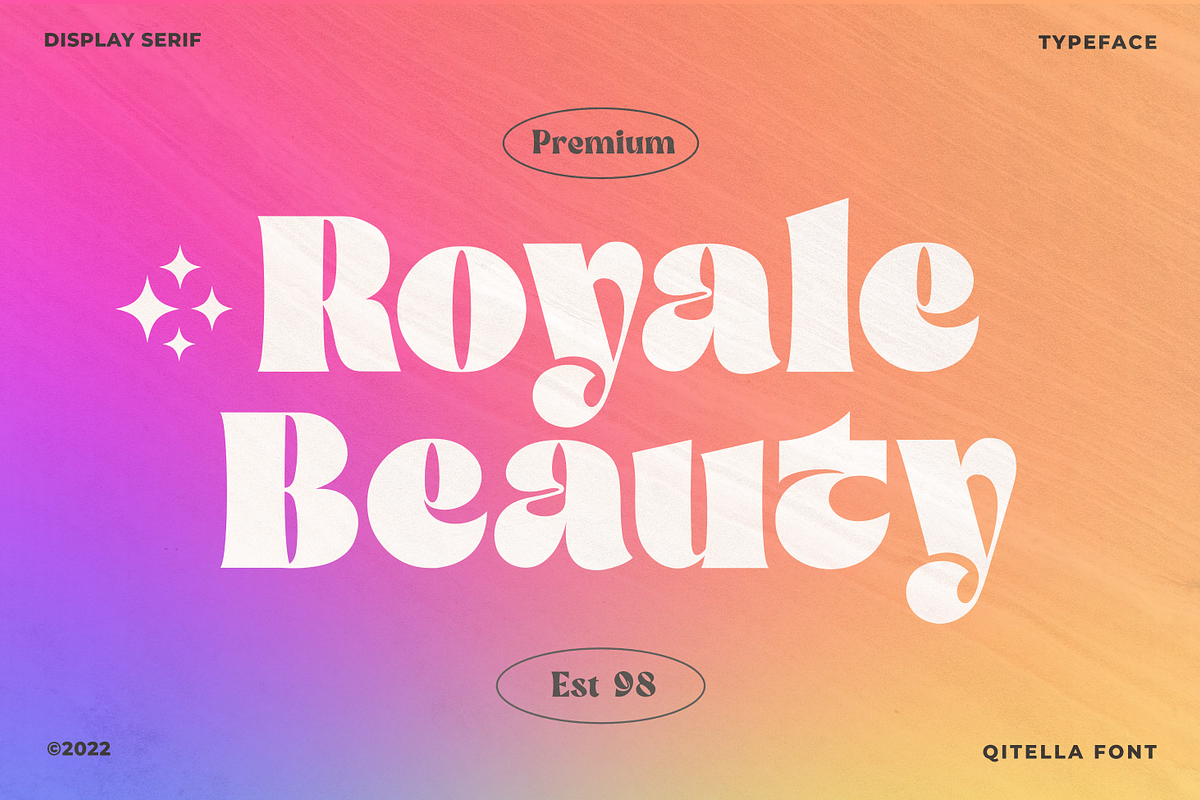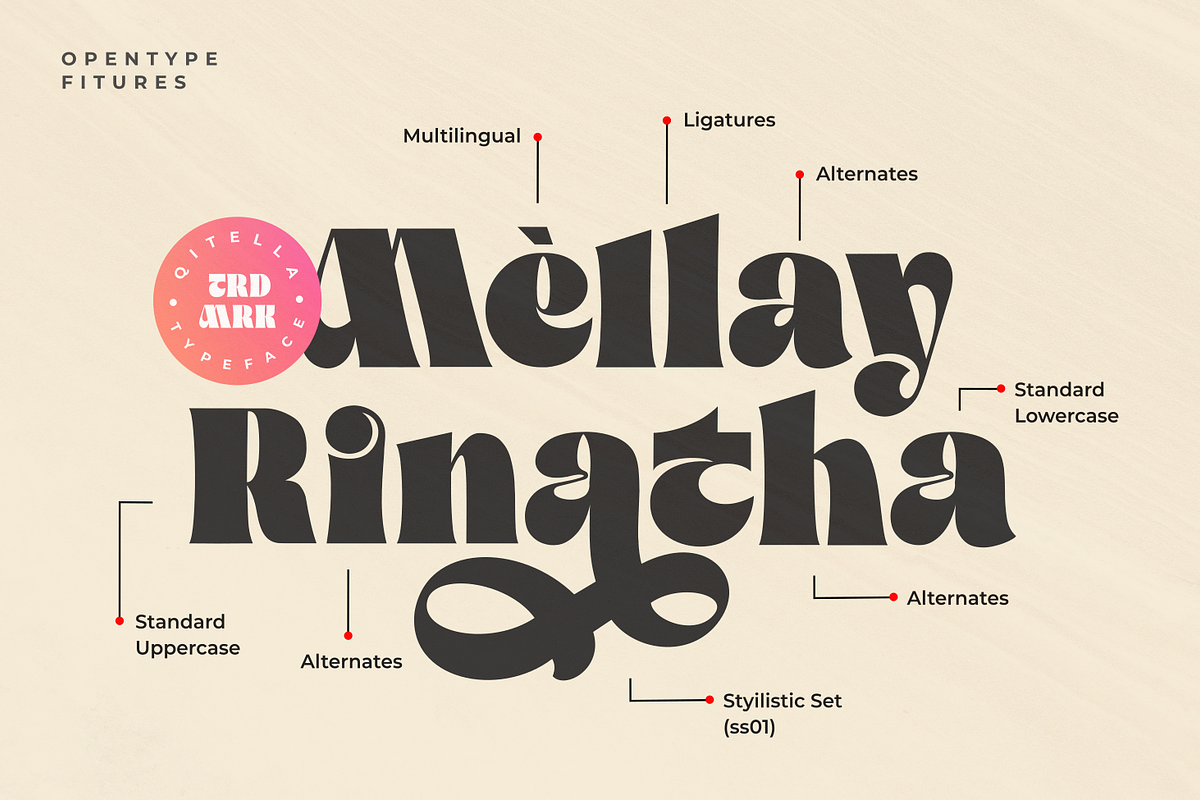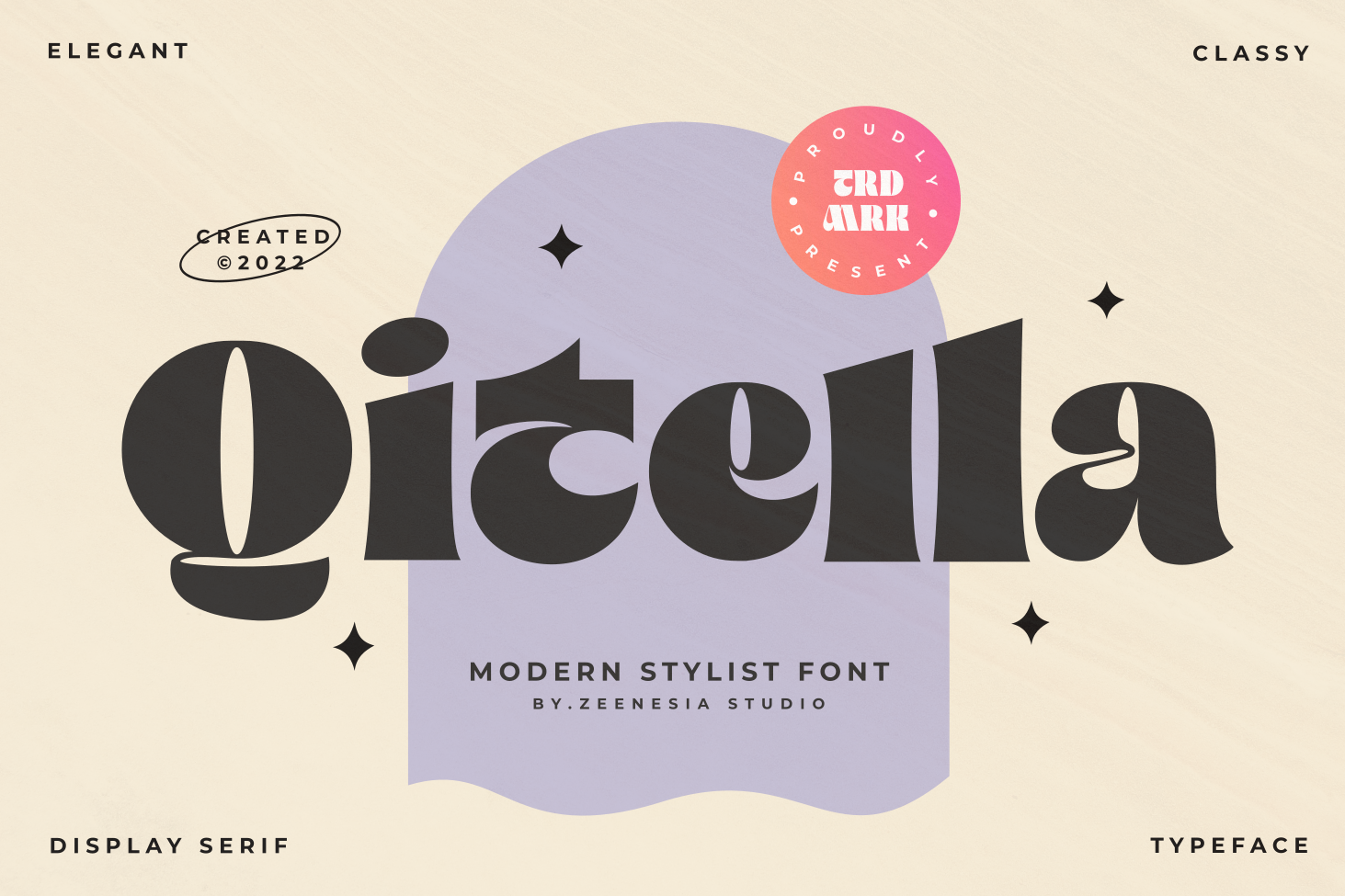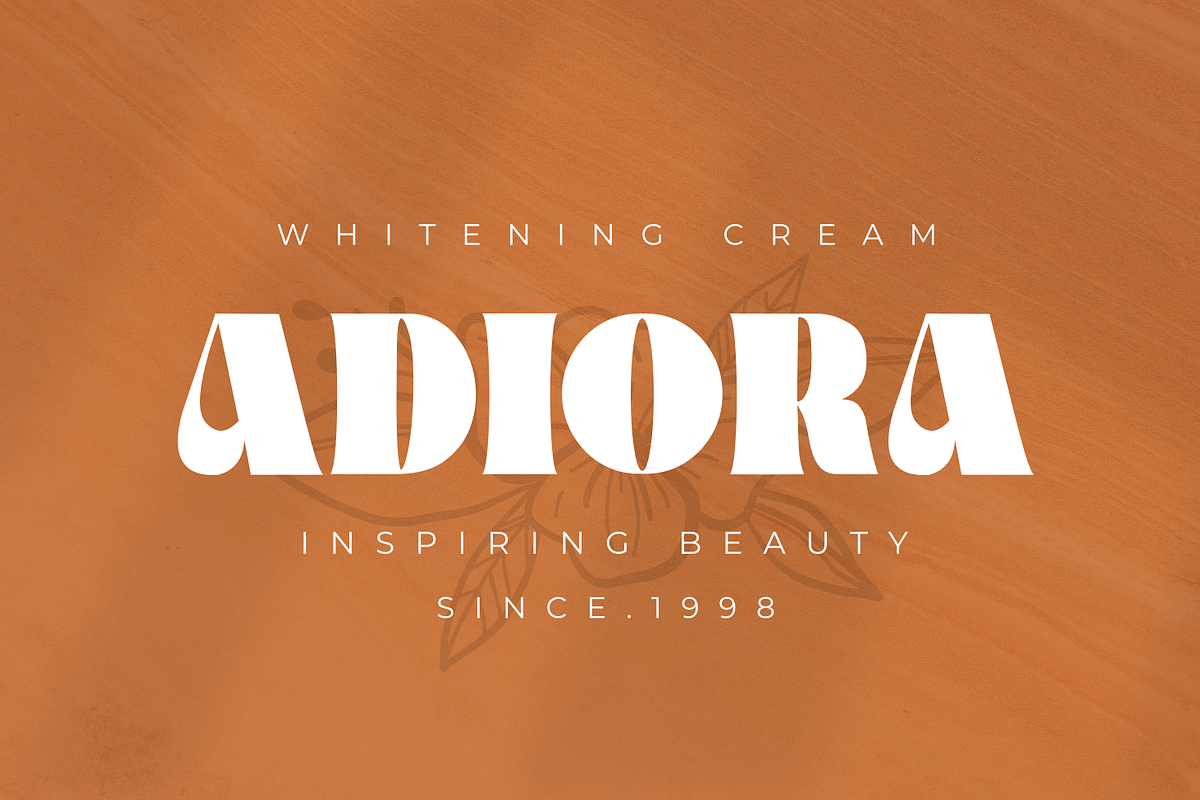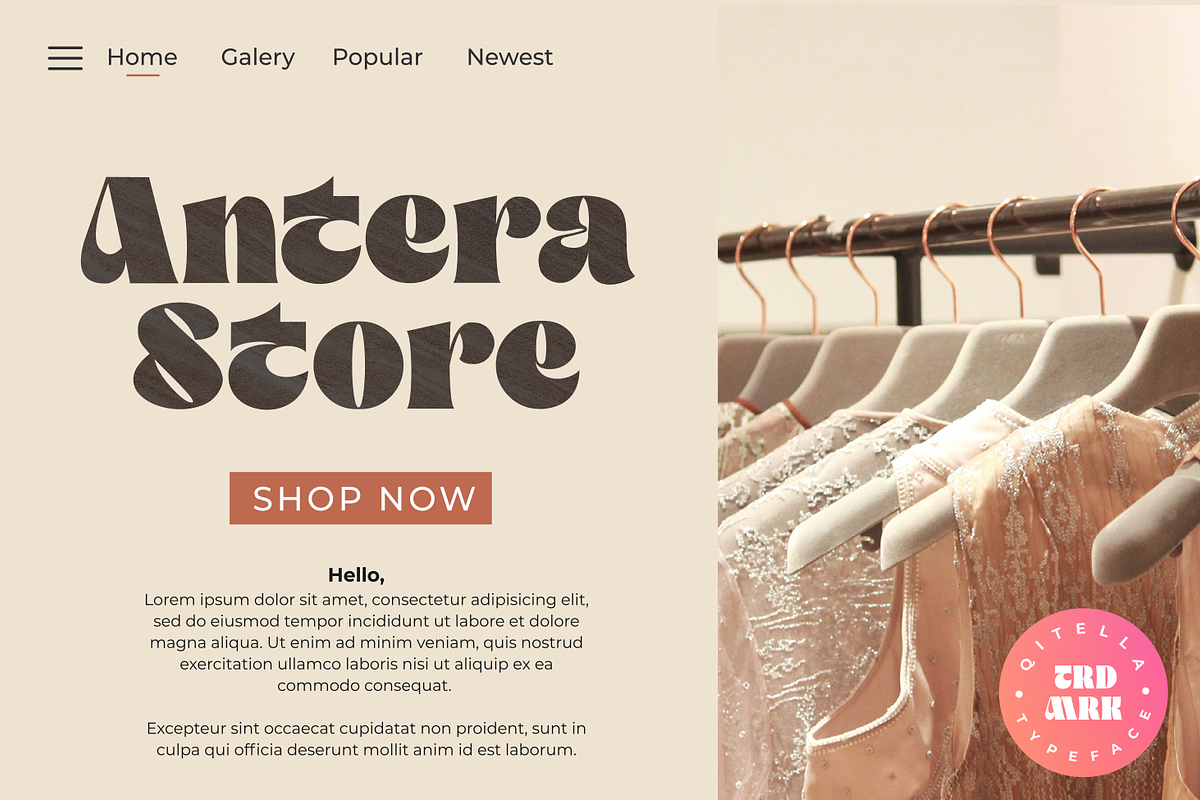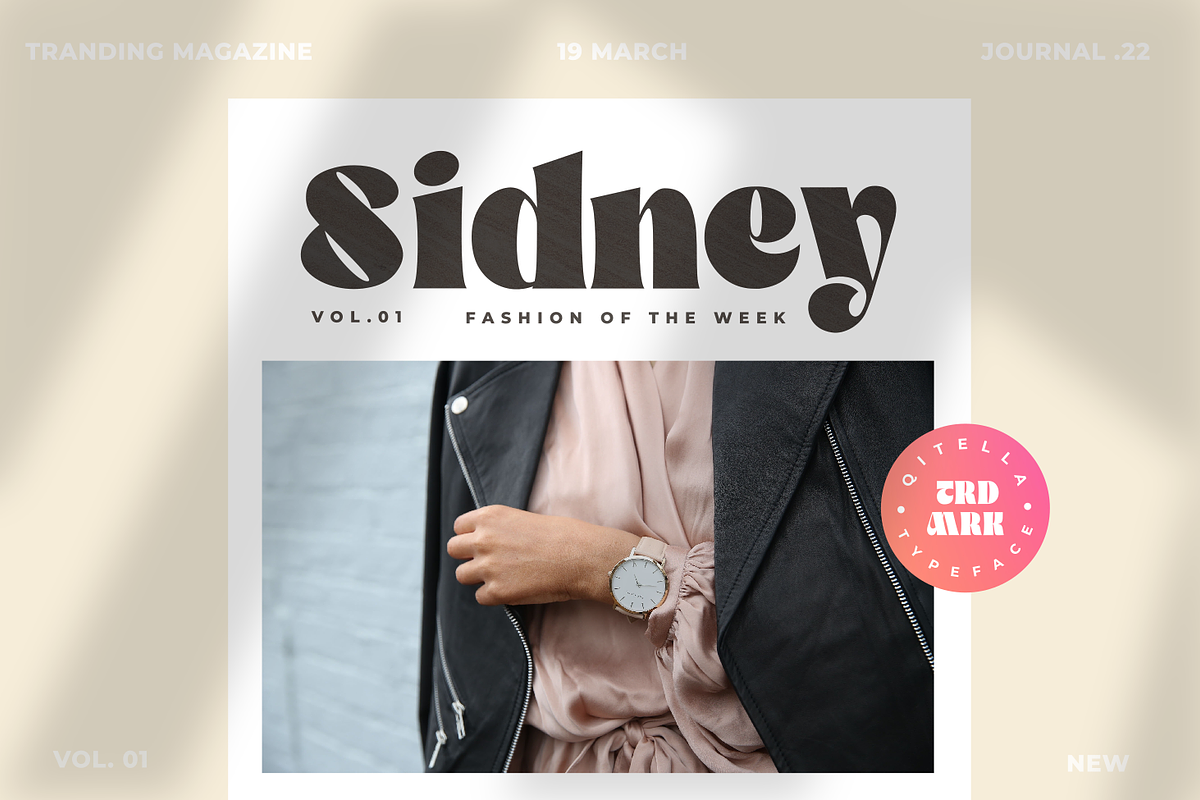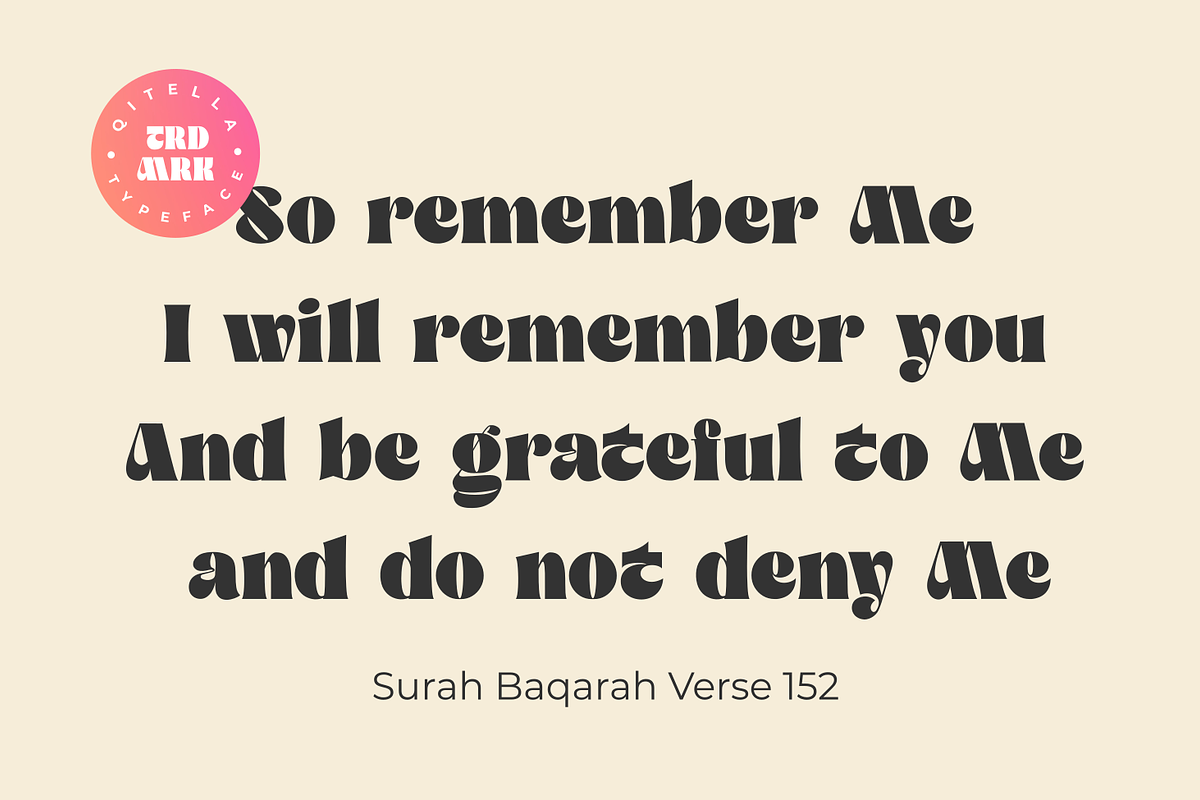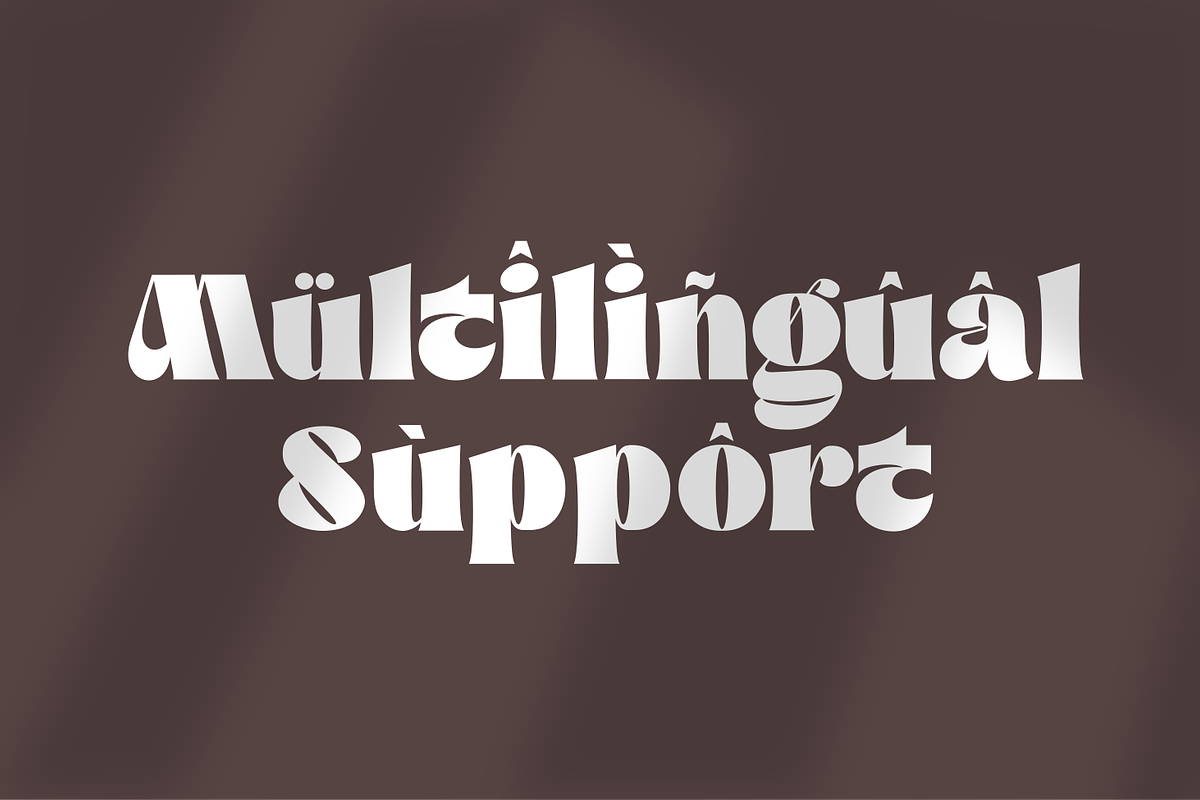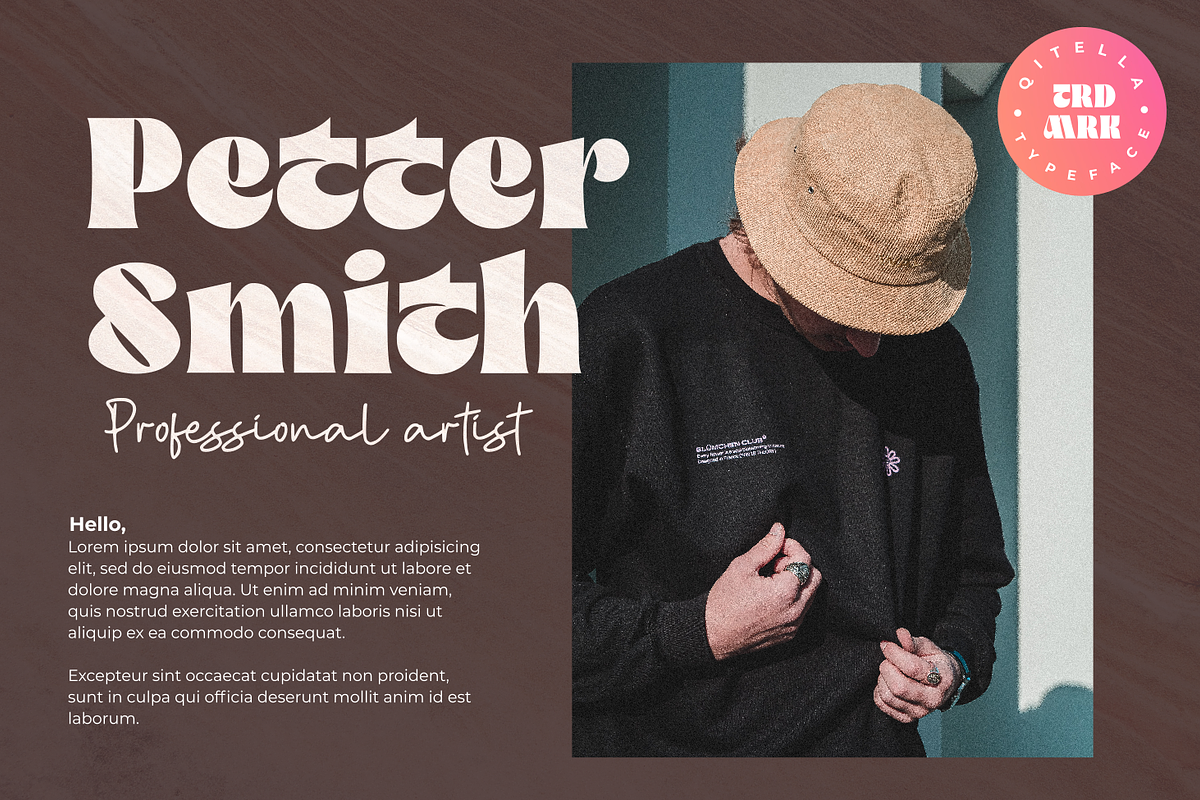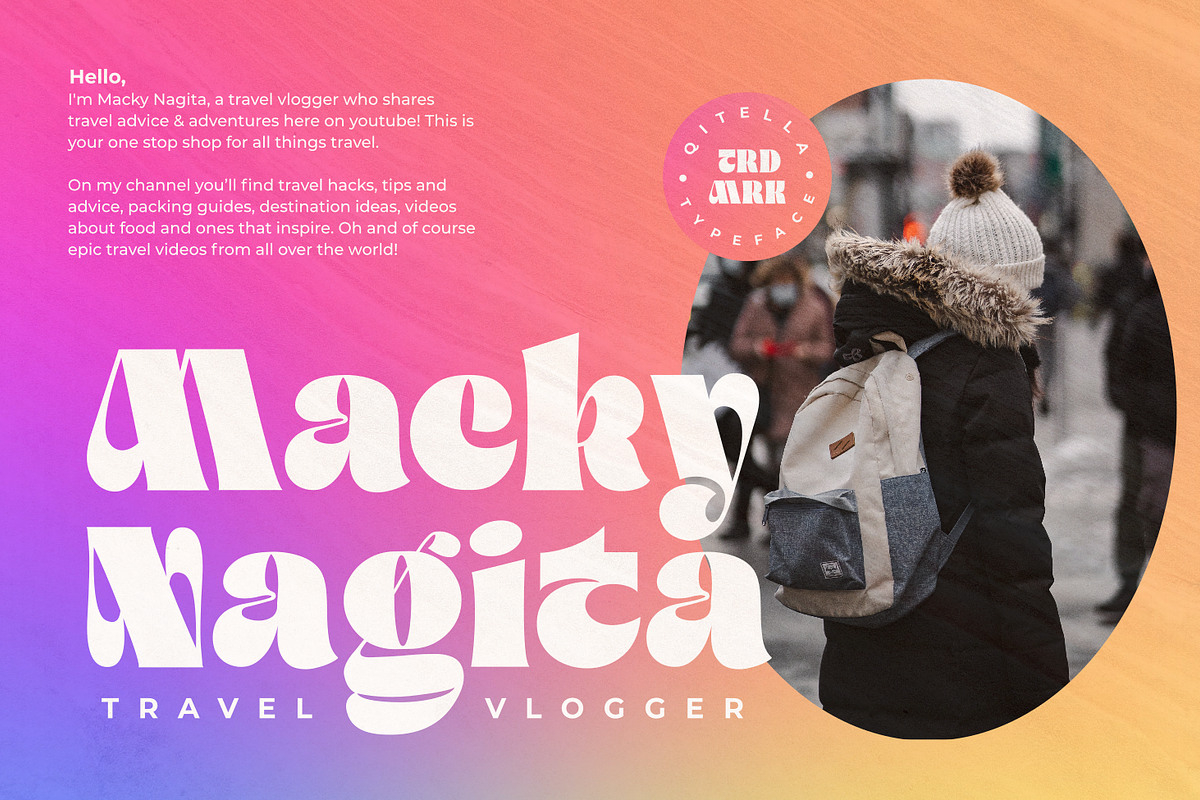
Qitella Modern Stylist Font
Qitella is a Bold style serif font with strong character and soft features. modern and classic serif font with a clear and bold look. It’s a very versatile font that works great in large.
Qitella was built with openType features, stylistic Alternate and Ligature makes your project will be awesome!!
Perfect for editorial projects, Logo design, web font, clothing branding, product packaging, magazine headers, or simply as a stylish text overlay to any background image.